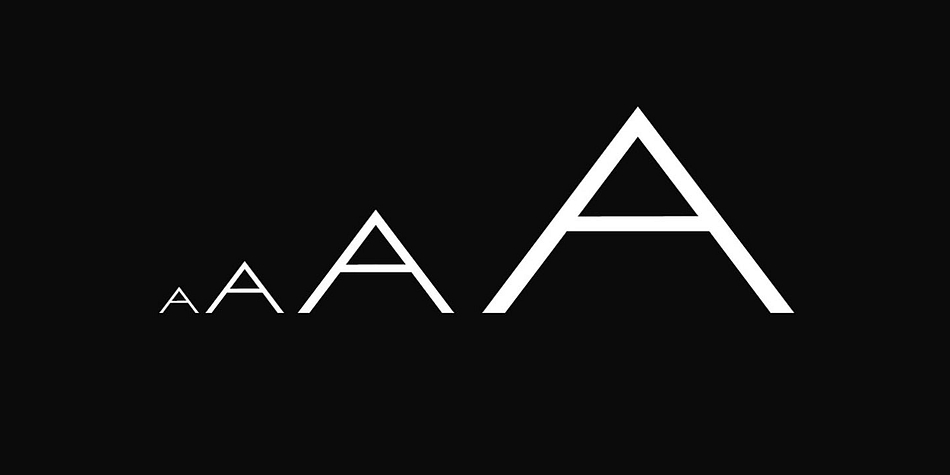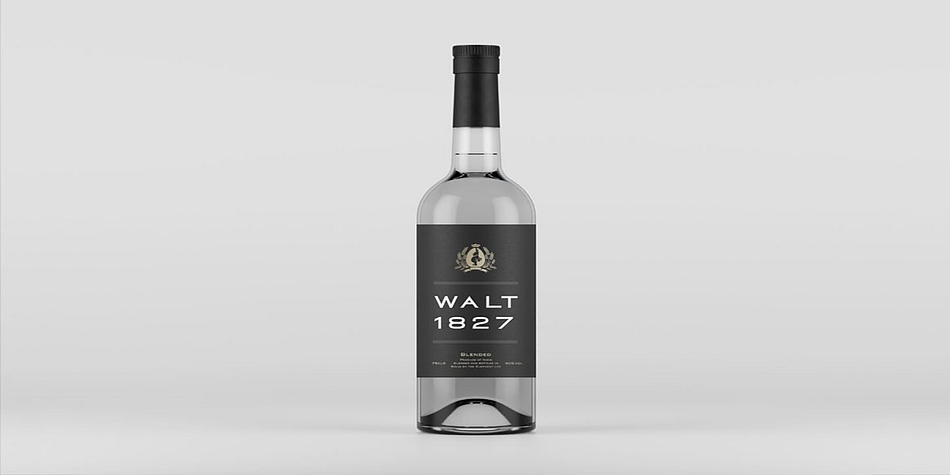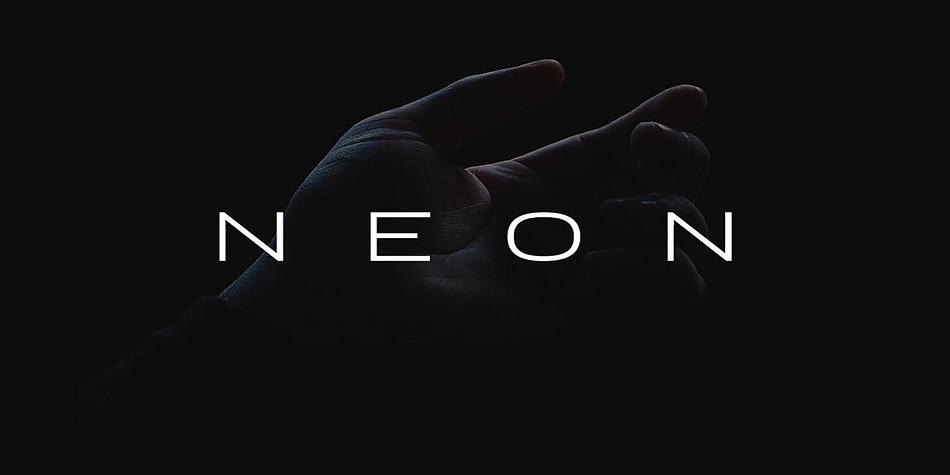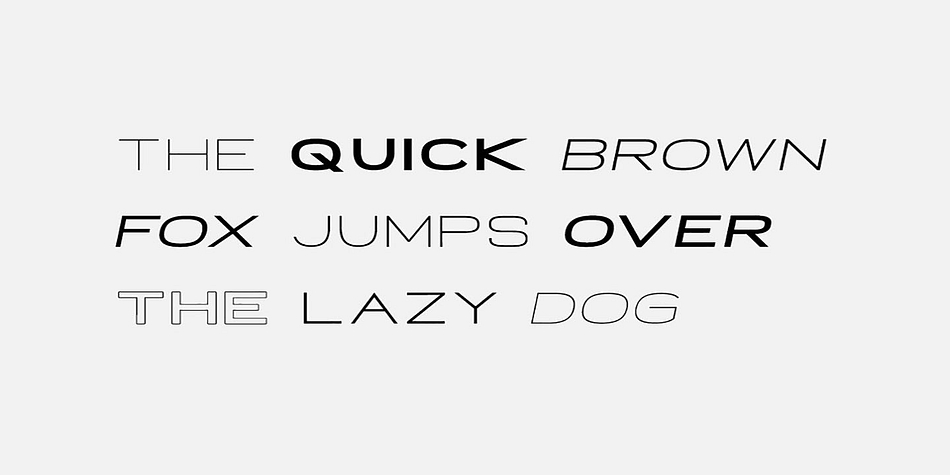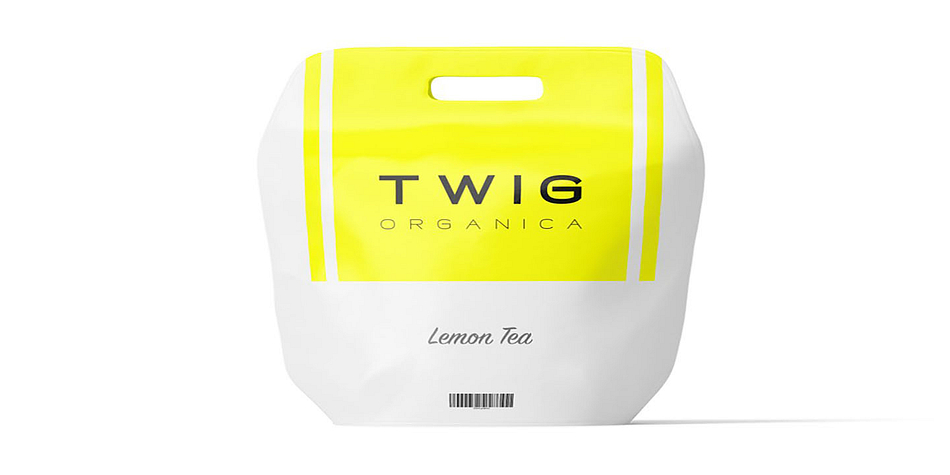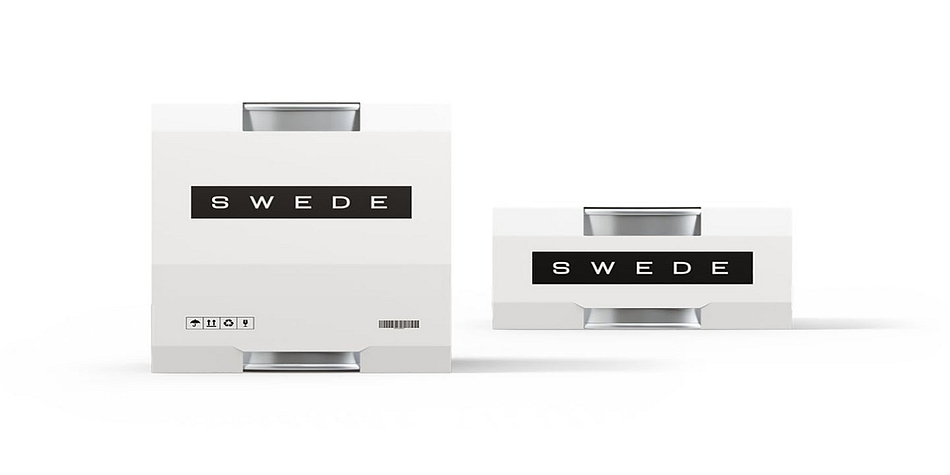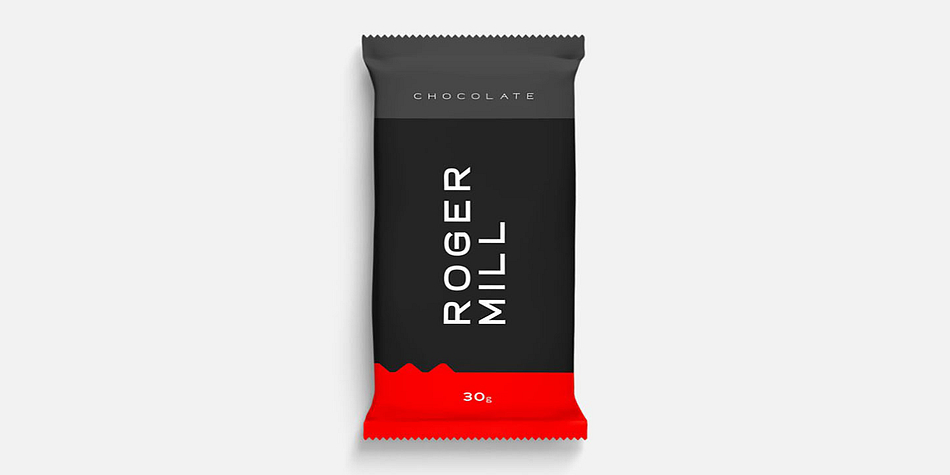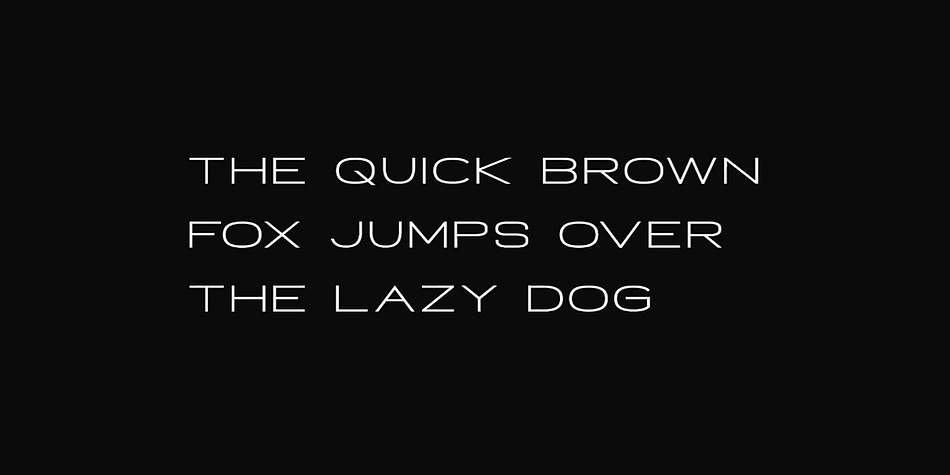
NEON
NEON is a display sans font family. This typeface has twenty styles and was published by Fontastica.
NEON is an unique minimal & modern Sans Serif / Display / All Caps typeface that defines a class of it’s own. NEON is dedicated for display and branding purposes, where this typeface can be a perfect choice for creating logotypes, branding, headlines, corporate identities, marketing materials for web & print as well as any type of minimal designs.
20 Fonts Inside:
NEON typeface comes with a massive collection of 20 fonts spanned across 8 weights (THIN / LIGHT / REGULAR / MEDIUM / BOLD / EXTRA BOLD / BLACK / HEAVY) as well as italic versions of all 8 weights. Moreover the typeface contains Outline versions of Regular, Italic, Bold and Heavy weights. The pack includes complete OTF, TTF and Web Fonts (all EOT, SVG, TTF, WOFF, WOFF2 everything is included).